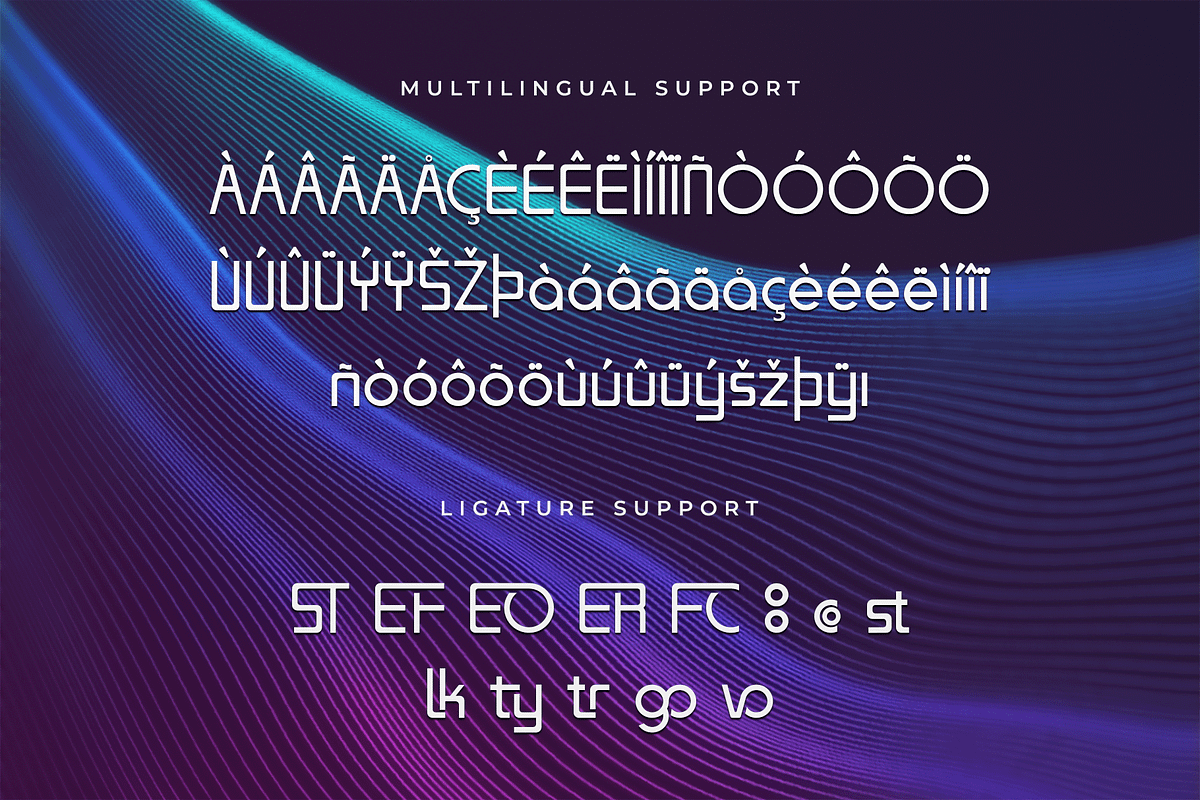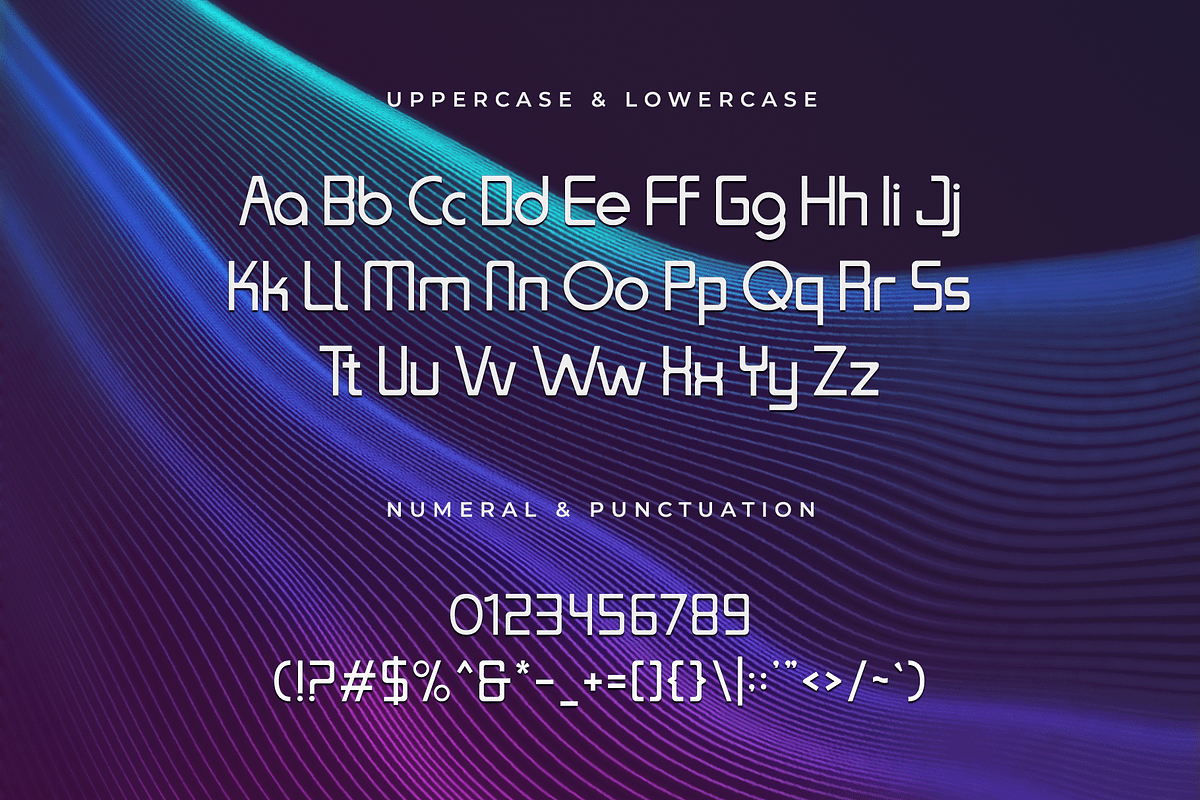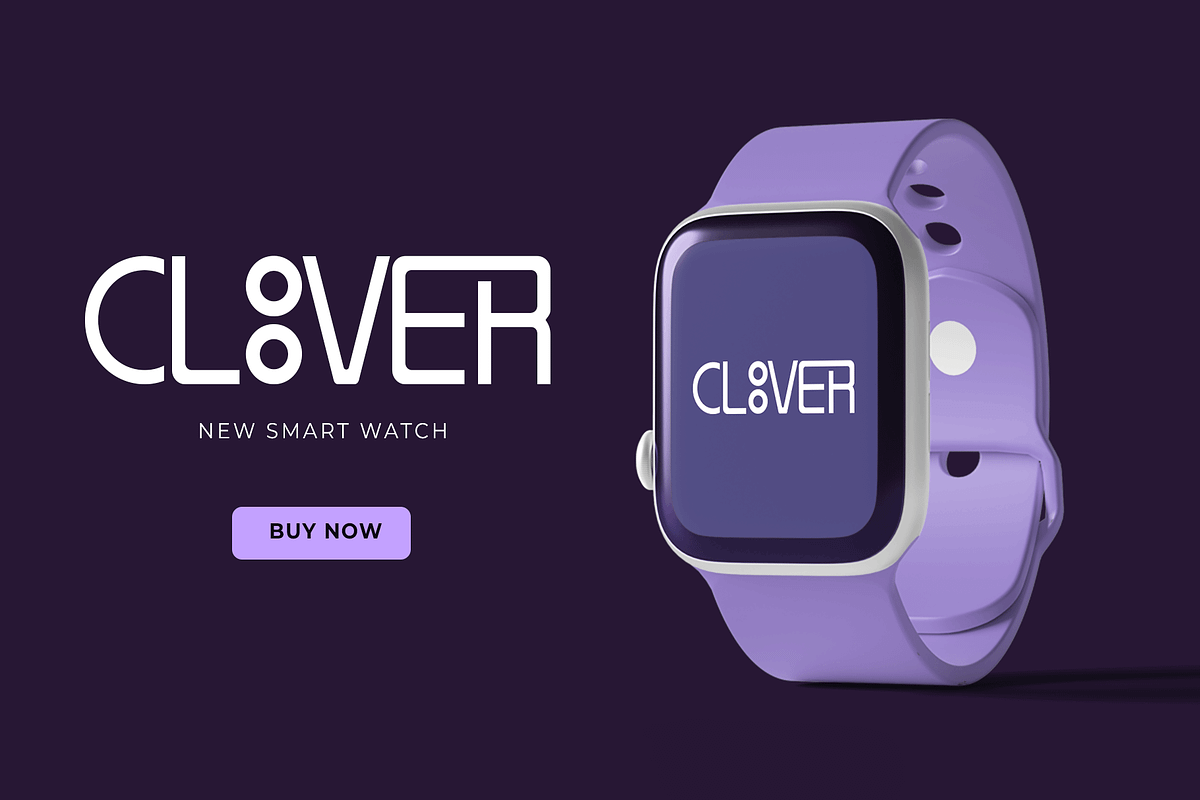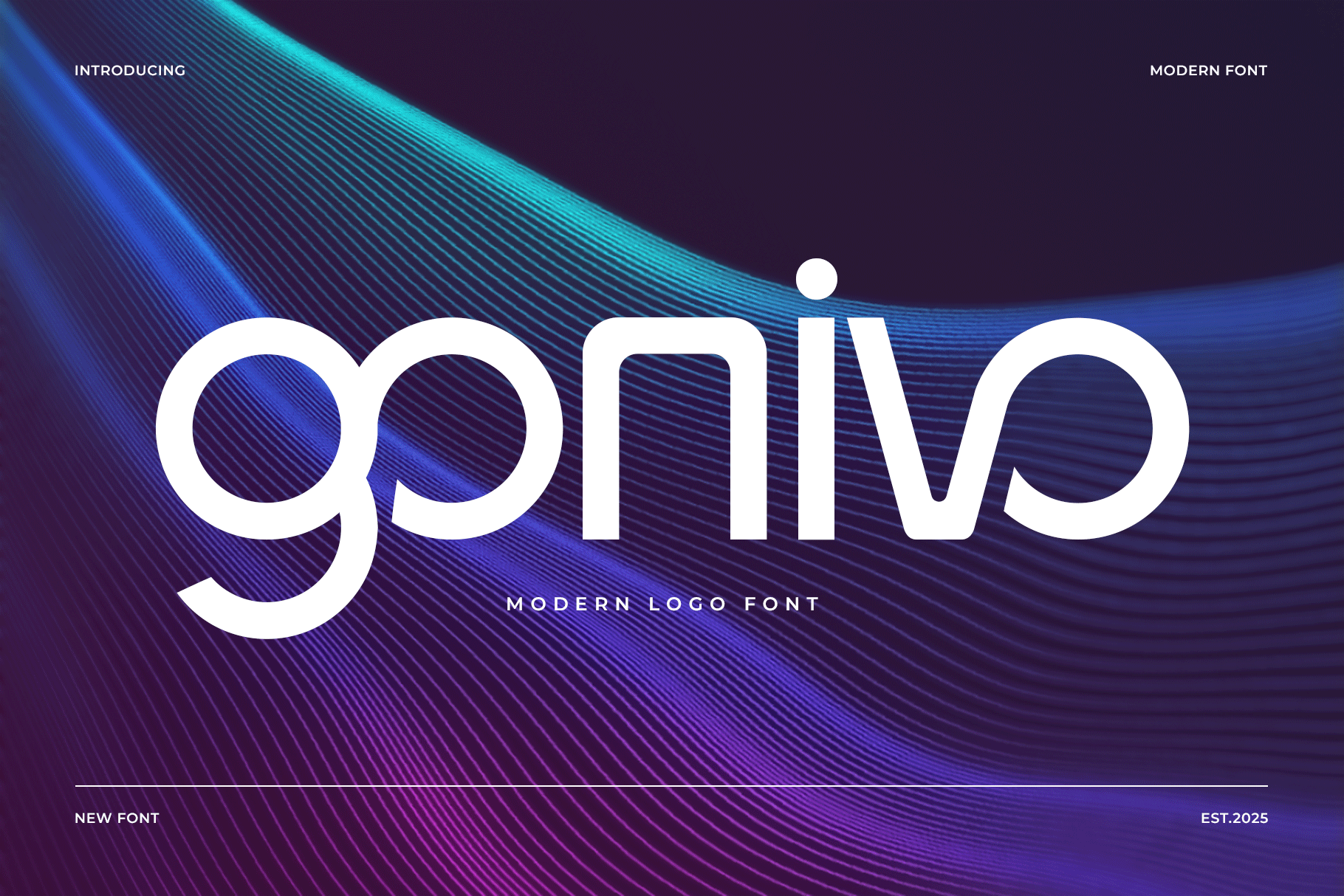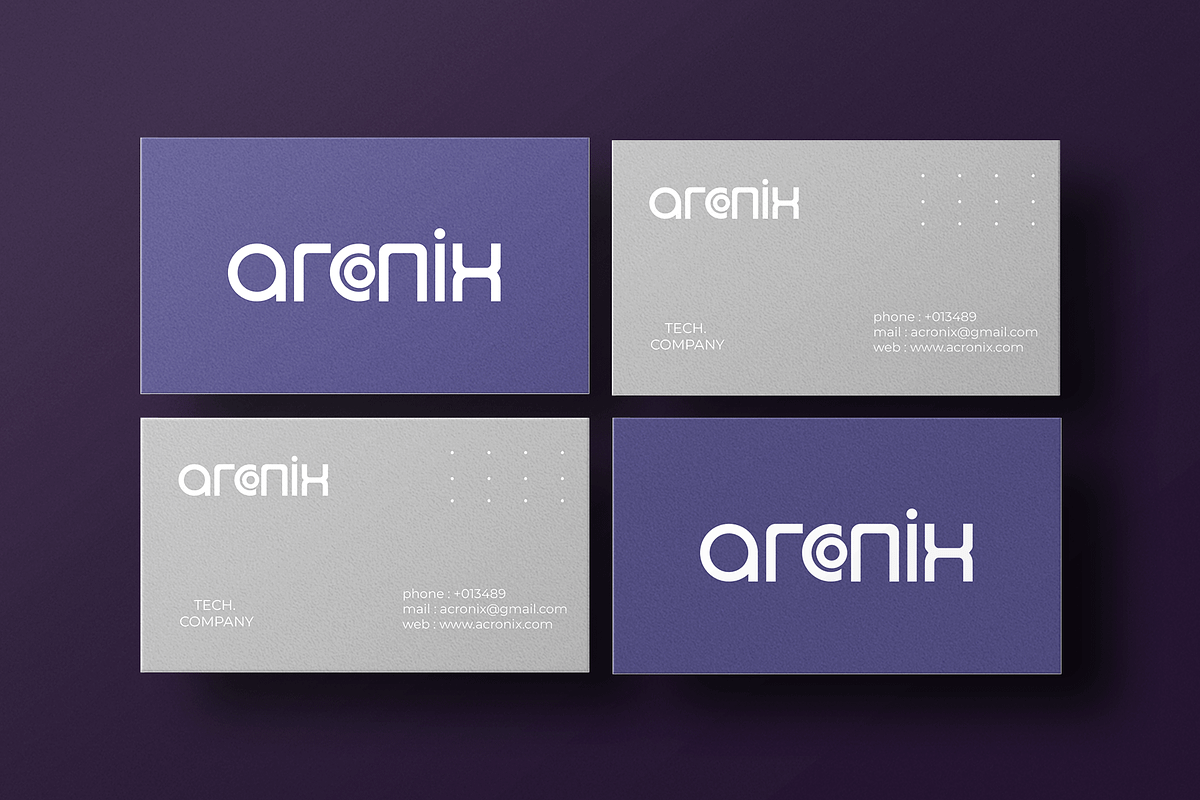
Gonivo – Modern Logo Font
Introducing Gonivo, a modern logo font designed to deliver clean sophistication and geometric balance to your creative projects. Featuring bold, streamlined letterforms with subtle futuristic flair, Gonivo is the perfect choice for logos, branding, product packaging, and digital design that demands a modern edge.
Crafted with precision, Gonivo offers optimal readability and visual impact, making it ideal for tech brands, fashion labels, startups, and design studios. Its unique letter shapes and minimalist aesthetic ensure your designs stand out with confidence and clarity.
Gonivo brings a professional, polished feel to your branding with a modern logo style that never fades.